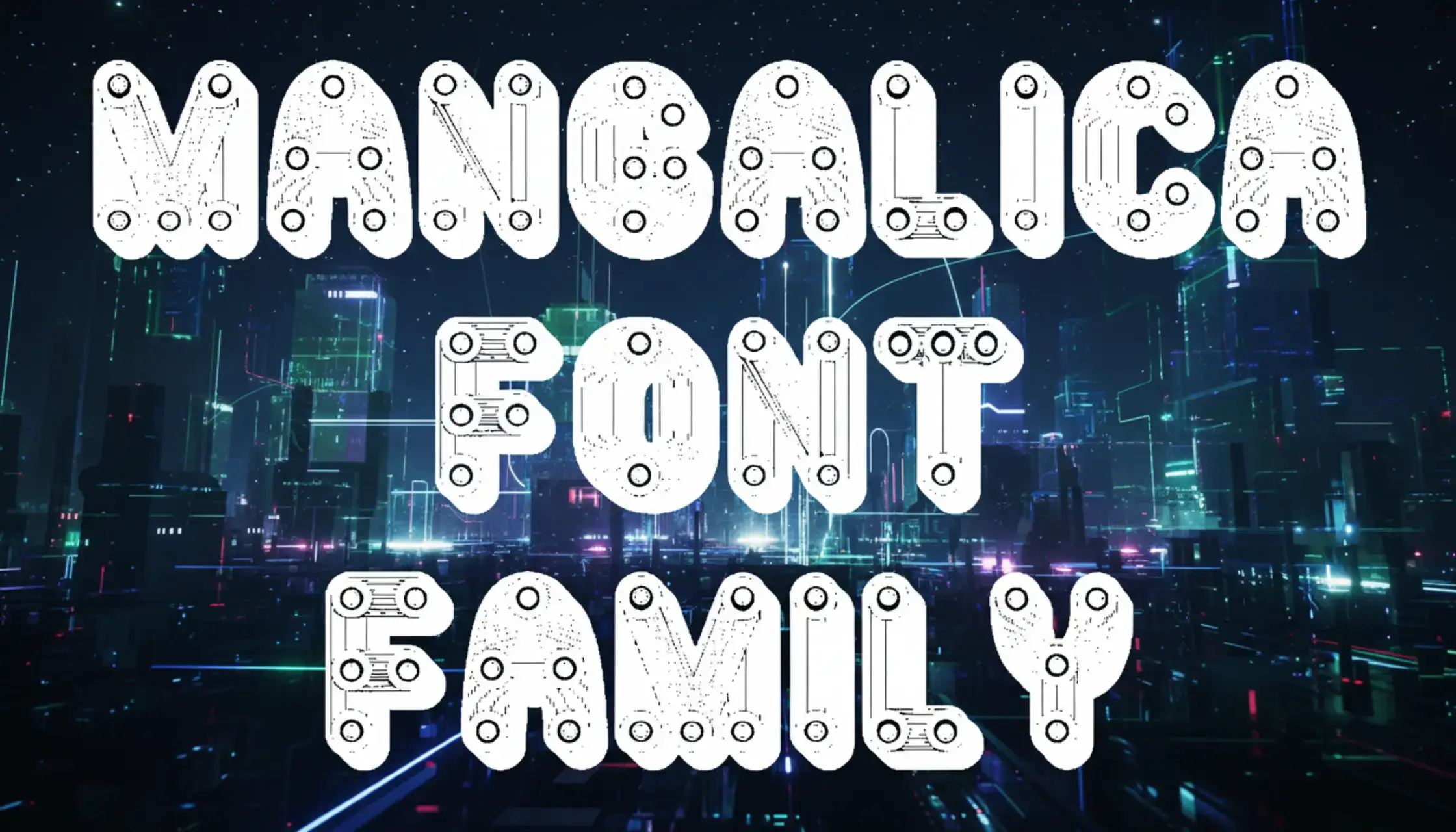
Mangalica Font Family
Mangalica Font Family is a fancy font created by Vladimir Nikolic. It's a decorative display font with plenty of personality, made to grab attention. It's a free download, and you can try it with your own text in the preview above first.
Mangalica Font Family has the full alphabet in upper and lowercase. There are no numbers, so you'll need a second font for dates, prices or phone numbers. Punctuation is limited, so look at the character map if you need a specific symbol. There are no accented letters like é or ñ, so it's best kept to English text.
Designers usually reach for fonts like Mangalica Font Family when they're making posters, logos and eye-catching headlines. Use it for one standout word or headline and let simpler fonts handle the rest.
No. Mangalica Font Family has no accented letters such as é, ñ or ü, so it's best for English text.